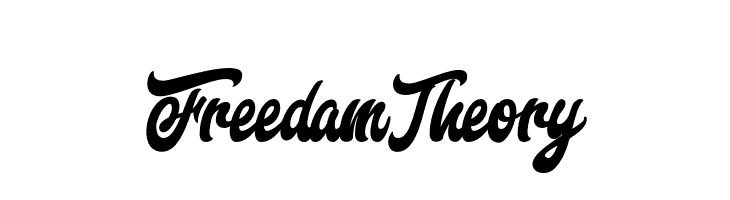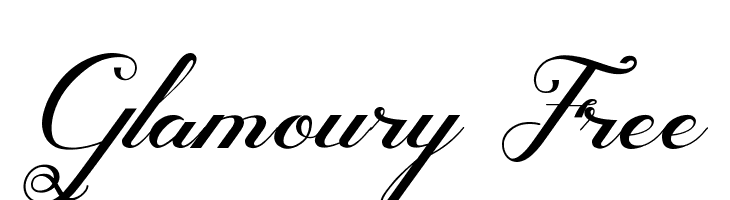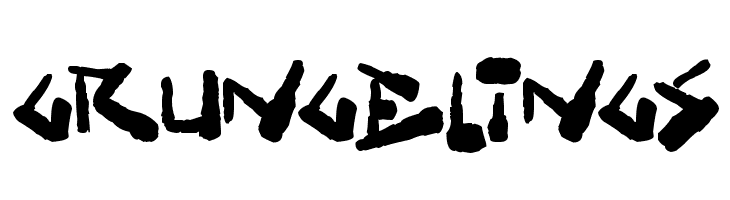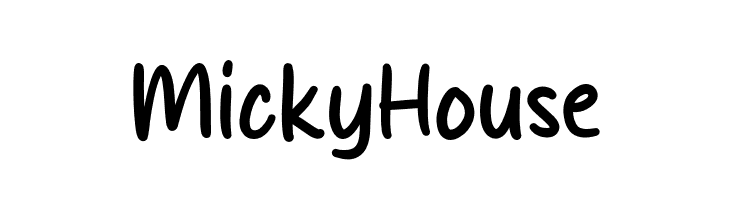
A bold, grungy font with a hand-painted, textured look.
A geometric, angular font with a futuristic and symbolic design.
A bold, geometric font with a hollow interior and a modern, digital look.
A casual, handwritten font with fluid, slightly uneven strokes.
A playful, handwritten font with smooth, rounded edges and a friendly appearance.
An elegant and decorative cursive font with intricate swashes and loops.
A bold, handwritten font with a playful and energetic style.
A bold, italicized font with high contrast and dynamic slant.
A futuristic, gradient-style font with horizontal lines and bold, angular characters.
A pixelated, retro-style font with a blocky, geometric appearance.